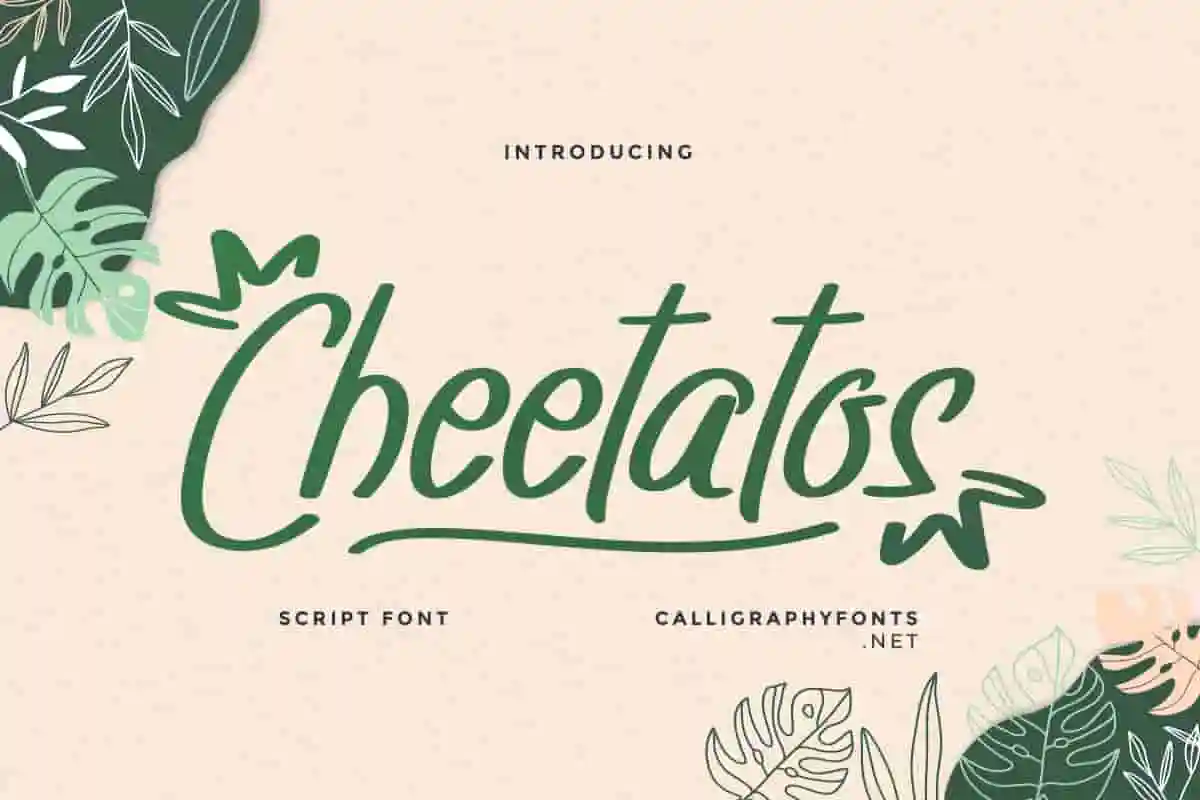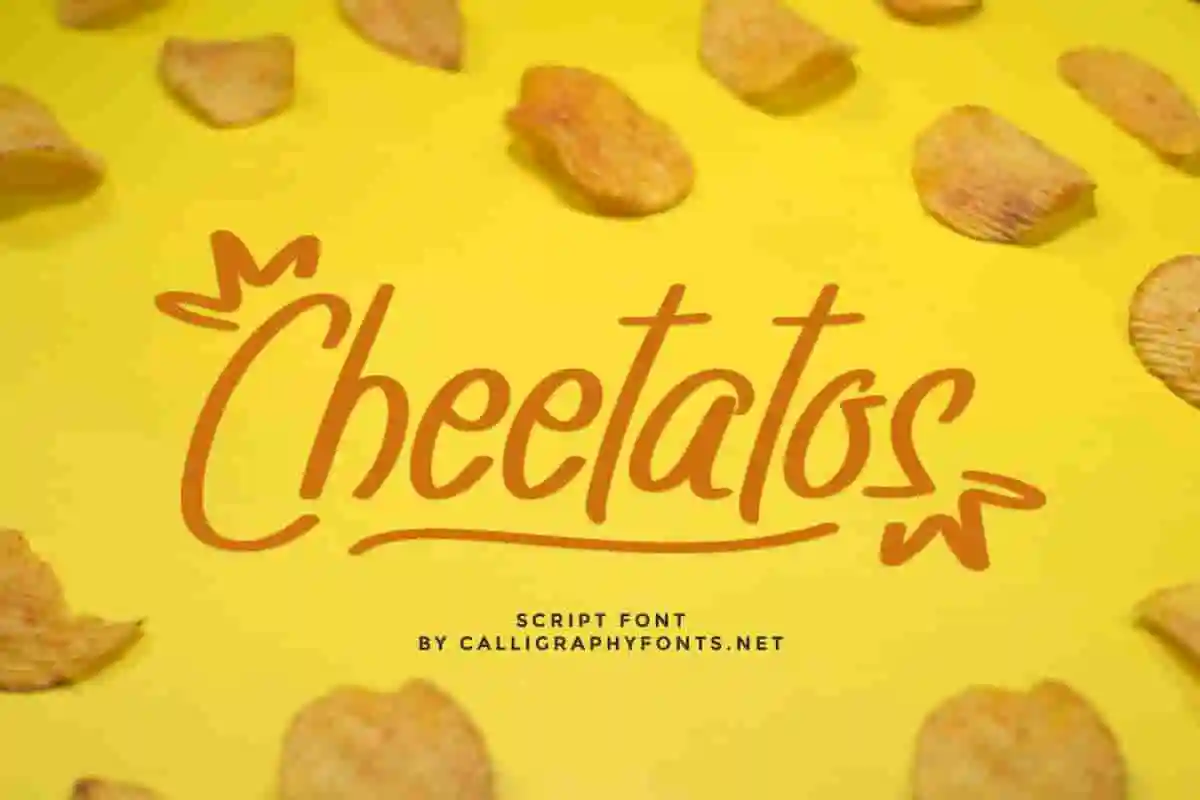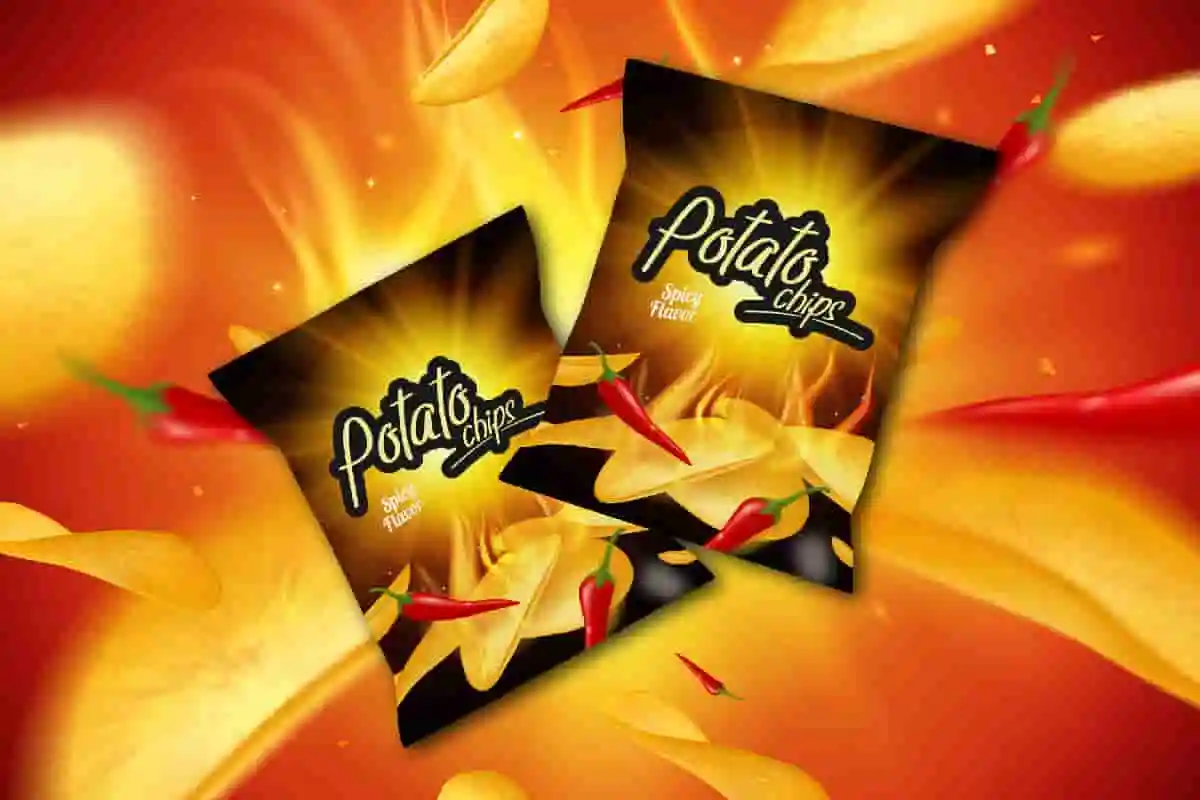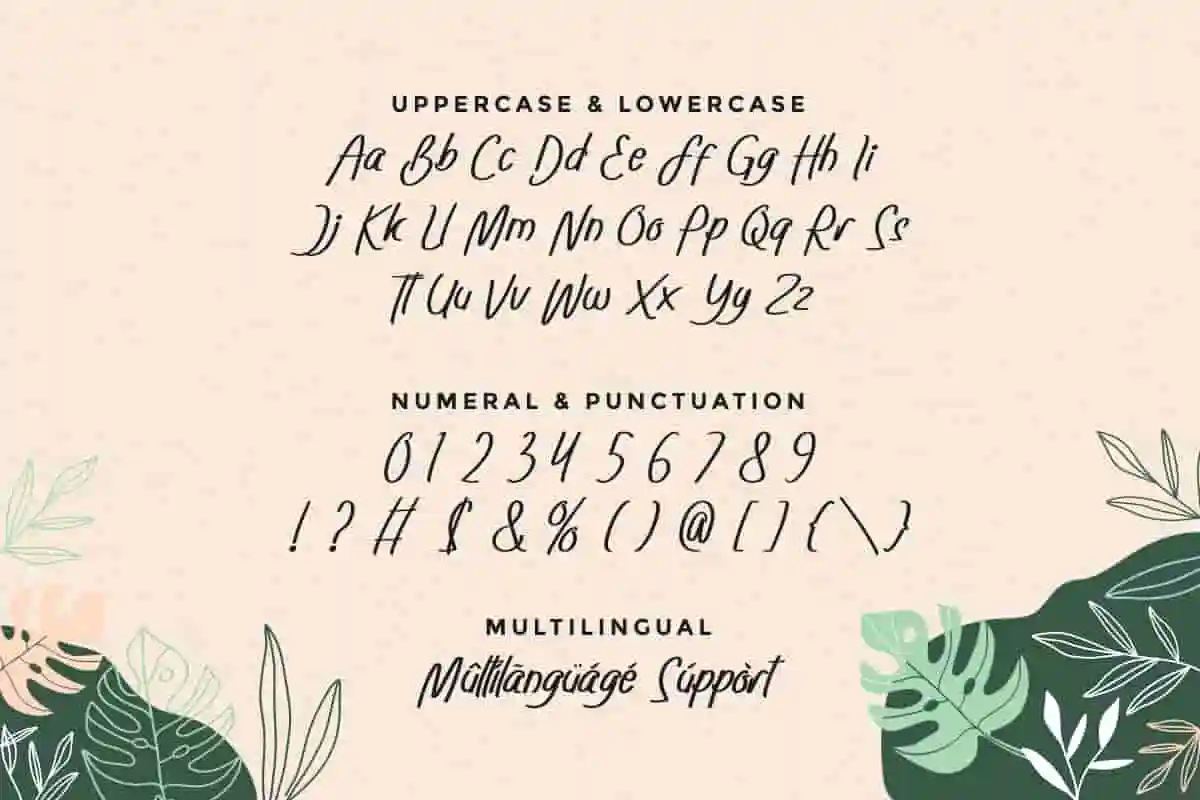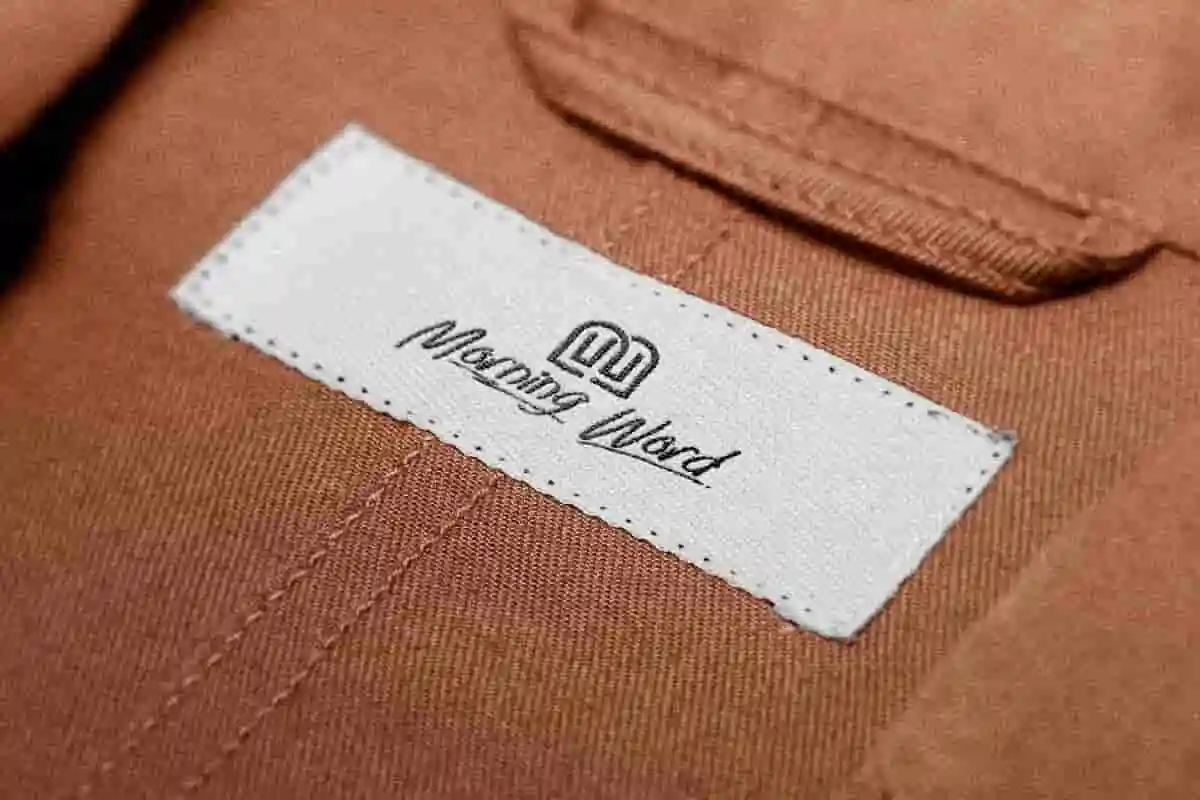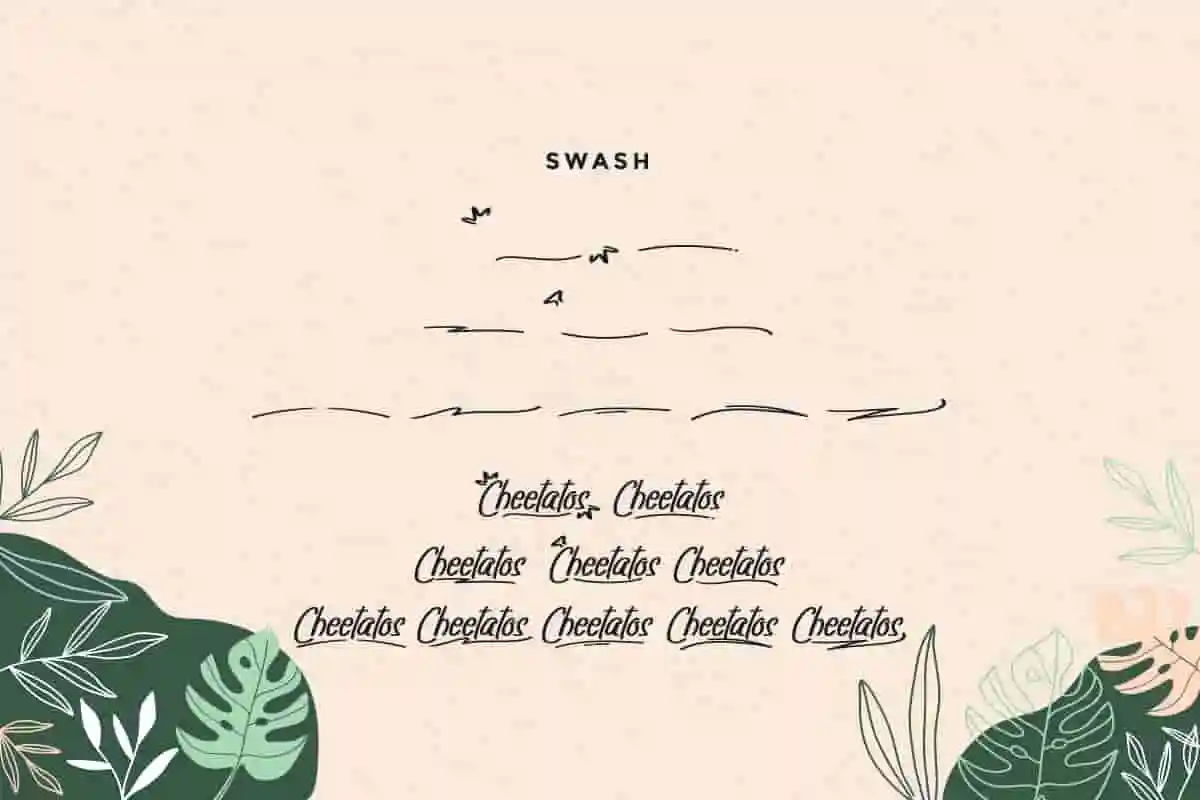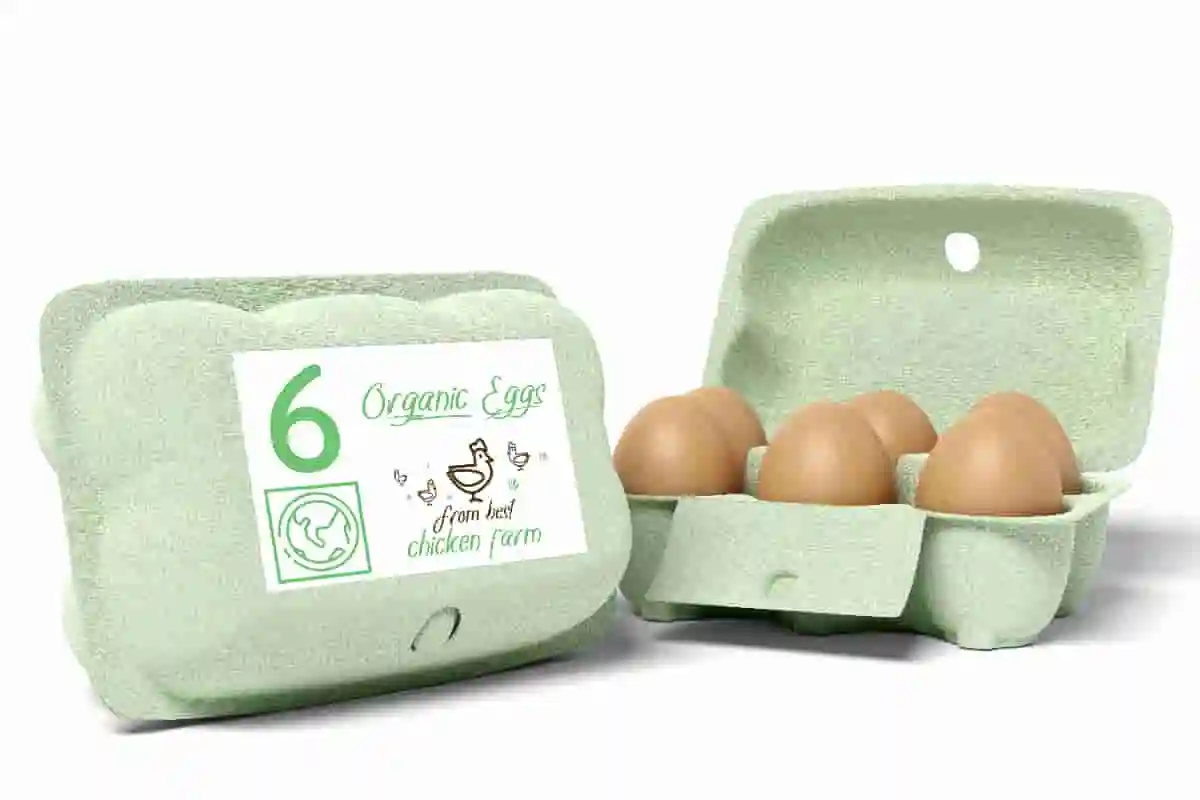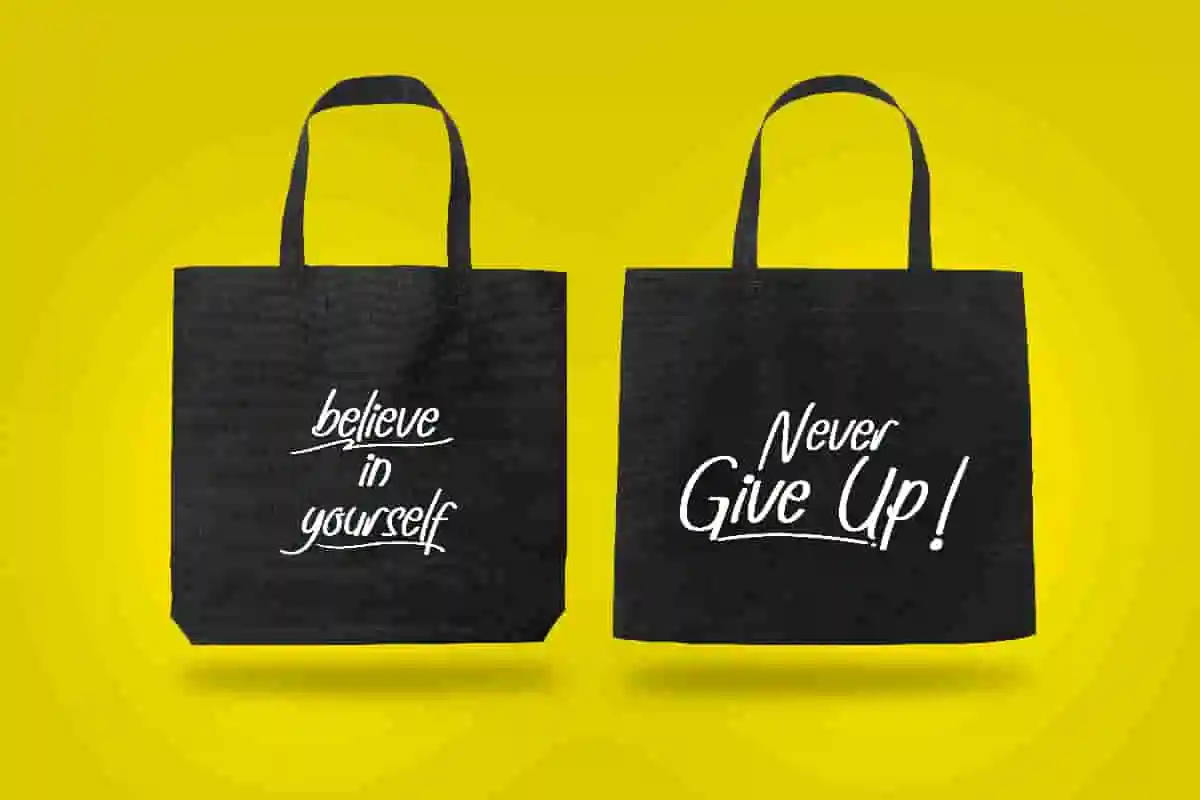
Cheetatos Fun Handwriting Font
Cheetatos Fun Handwriting Font is unique handwriting font by CalligraphyFonts.net. It has great characters that will be awesome for branding, poster, invitation, flyer etc
Cheetatos is a fun, comic and casual Handwriting font. Inspired from popular food brandings, the font will be awesome for brands, packaging, invitation, games. etc